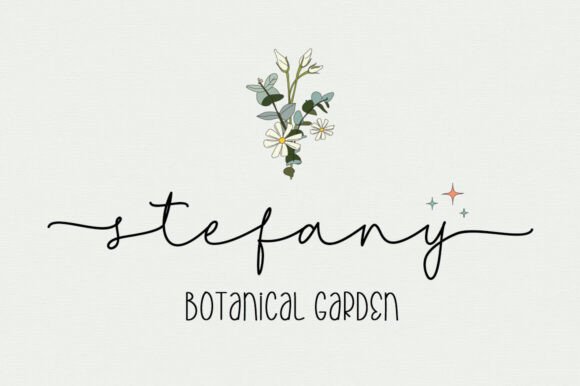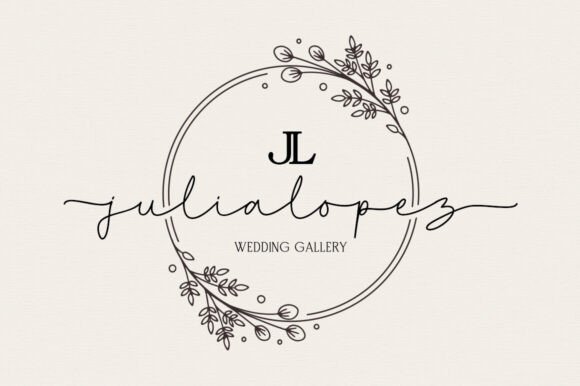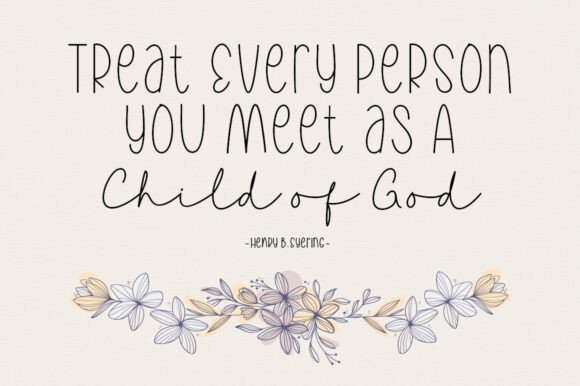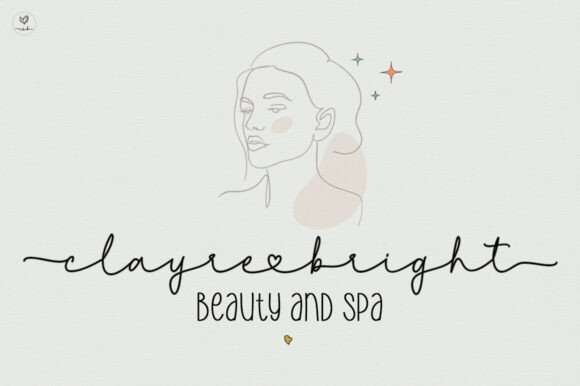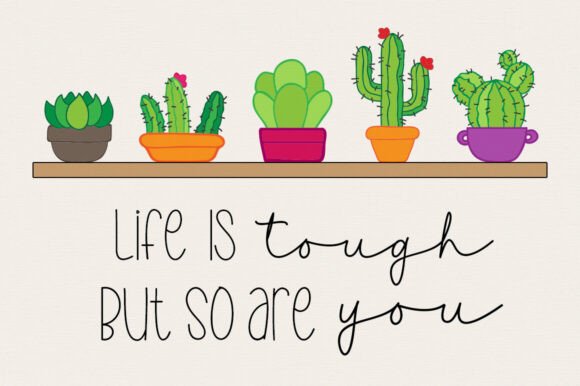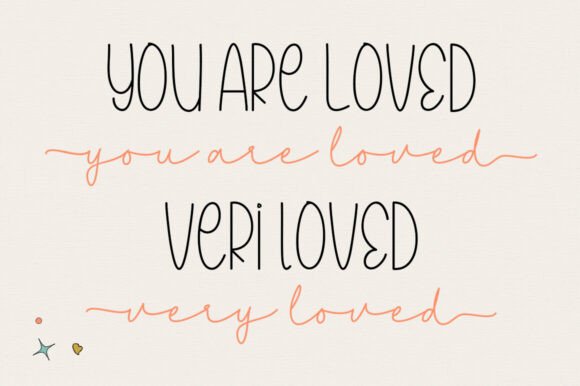
Introducing Alphabet Mono Duo Font: A Modern Handwritten Font for Creative Designs
In the world of typography, a good font can make all the difference in creating visually appealing designs. For designers and crafters looking for a modern handwritten font that exudes a sense of informality, romance, and sweetness, Alphabet Mono Duo Font is an excellent choice. This font collection consists of two styles that combine beautiful design elements and hand-drawn typography, making it perfect for a wide range of graphic design needs.
What is Alphabet Mono Duo Font?
Alphabet Mono Duo Font is a carefully crafted font collection that features two distinct styles. The font is a modern handwritten typeface that boasts informal, romantic, sweet, and beautiful design elements. The hand-drawn typography design elements add a touch of uniqueness to the font, making it stand out from other fonts in the same category.
Key Features of Alphabet Mono Duo Font
- Modern Handwritten Font: Alphabet Mono Duo Font is a modern handwritten font that is perfect for designers looking for a fresh and contemporary look.
- Two Styles: The font collection comes with two distinct styles, providing designers with flexibility and versatility in their designs.
- Informal and Romantic: The font features informal and romantic design elements, making it ideal for designs that require a personal touch.
- Sweet and Beautiful: The font’s sweet and beautiful design elements make it perfect for designs that require a touch of elegance and sophistication.
- Hand-Drawn Typography: The hand-drawn typography design elements add a unique touch to the font, making it stand out from other fonts.
Use Cases for Alphabet Mono Duo Font
Alphabet Mono Duo Font is a versatile font that can be used for a wide range of graphic design needs. Here are some use cases where the font can be used:
- Magazine Preview and Cover Designs: The font is perfect for designing magazine previews and cover designs that require a modern and fresh look.
- Logo Designs: The font can be used to create unique and creative logo designs that require a personal touch.
- Invitation Cards: The font is ideal for designing invitation cards for weddings, parties, and other events that require a touch of elegance and sophistication.
- Other Graphic Needs: The font can be used for other graphic design needs such as brochures, flyers, posters, and more.
Benefits of Using Alphabet Mono Duo Font
Using Alphabet Mono Duo Font in your designs comes with several benefits. Here are some of the advantages of using this font:
- Unique and Creative: The font’s unique and creative design elements make it stand out from other fonts.
- Flexible and Versatile: The font’s two styles provide designers with flexibility and versatility in their designs.
- Scalable: The font is scalable, making it perfect for designs that require a large or small font size.
| Font Name | Alphabet Mono Duo Font |
| Author | softcreative50 |
Alphabet Mono Duo Font is a modern handwritten font that is perfect for designers and crafters looking for a unique and creative font for their designs. With its two styles, informal and romantic design elements, and hand-drawn typography, this font is ideal for a wide range of graphic design needs. Whether you’re designing magazine previews and cover designs, logo designs, invitation cards, or other graphic needs, Alphabet Mono Duo Font is an excellent choice.
So, if you’re looking for a font that can add a touch of elegance and sophistication to your designs, look no further than Alphabet Mono Duo Font. With its unique and creative design elements, flexibility, and versatility, this font is sure to become a favorite in your design arsenal.